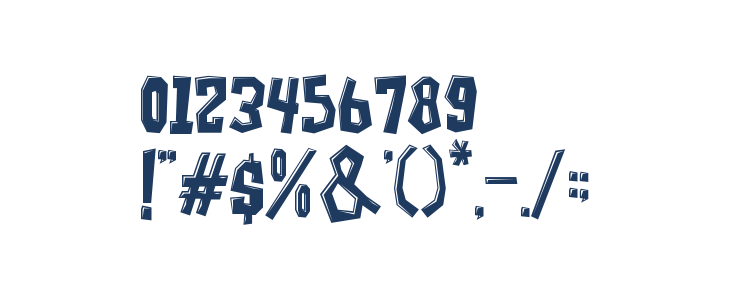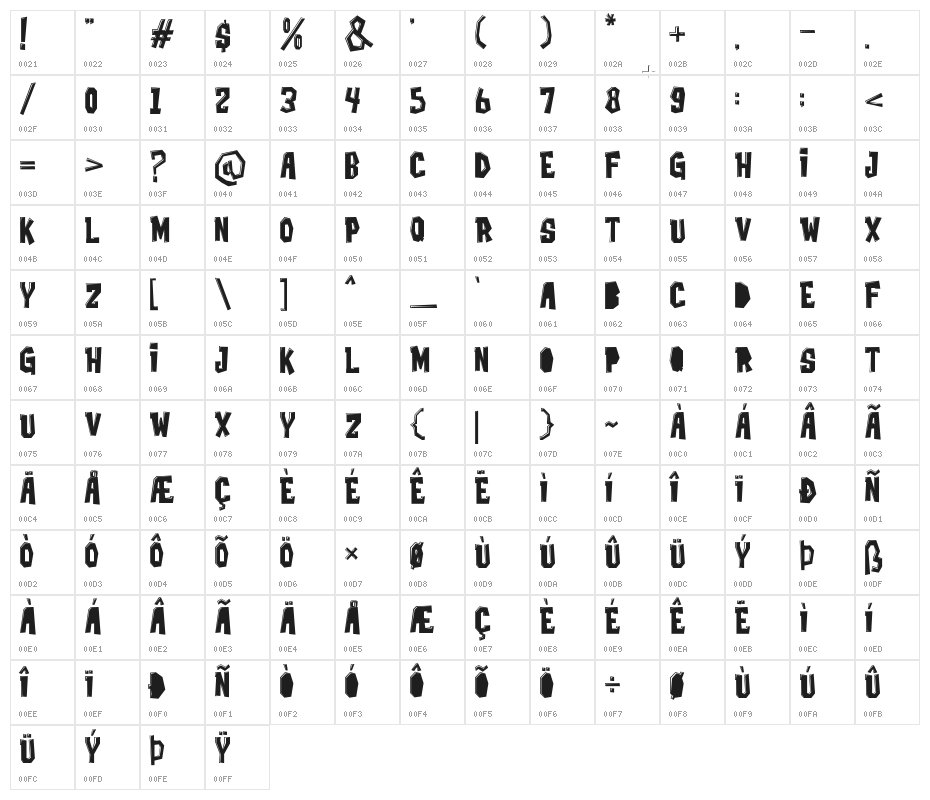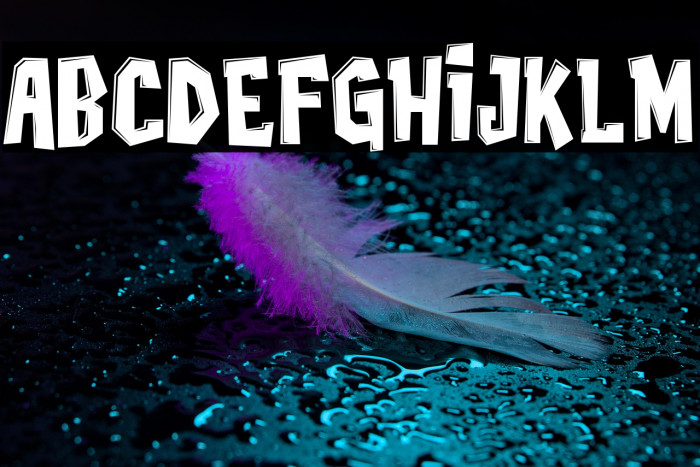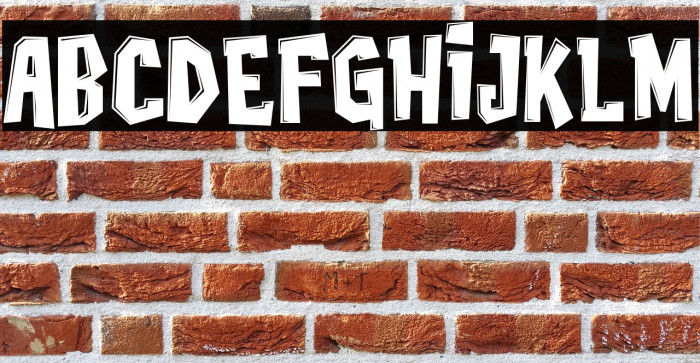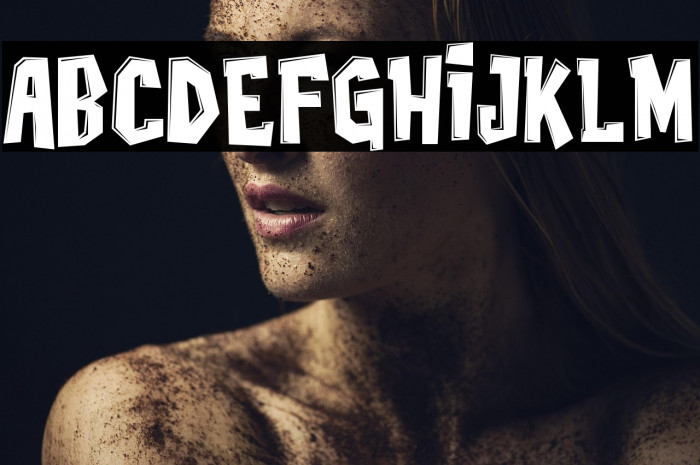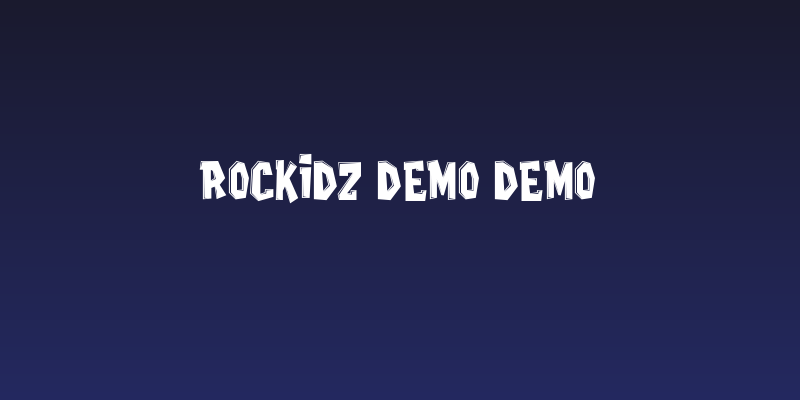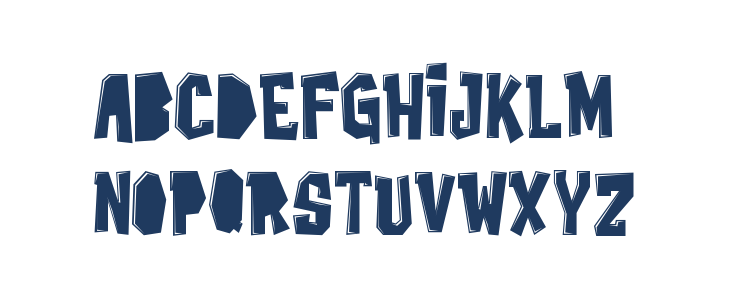
Rockidz Demo Demo Font
Rockidz Demo Demo Description
This font features a bold and dynamic style with a playful, cartoonish appearance. The characters are designed with a three-dimensional effect, giving them a shadowed look that adds depth and visual interest. The uppercase letters are particularly striking, with sharp angles and a slightly irregular form that enhances the font's energetic and youthful vibe. The numbers and special characters maintain this bold and lively aesthetic, making the font suitable for eye-catching designs. Its unique style is perfect for projects that require a fun and engaging typeface.
| Overall Style | Playful, Cartoonish, Energetic |
| Proposed Projects | Ideal for children's book covers, comic titles, playful branding, and event posters. |